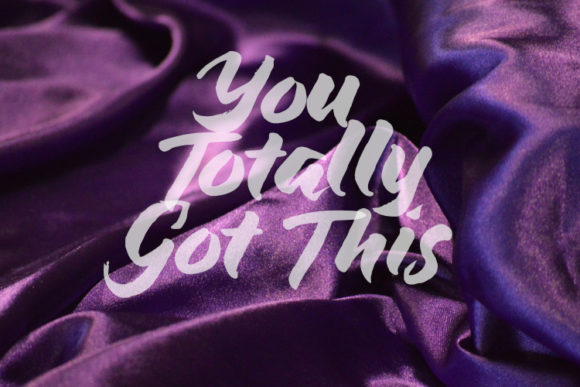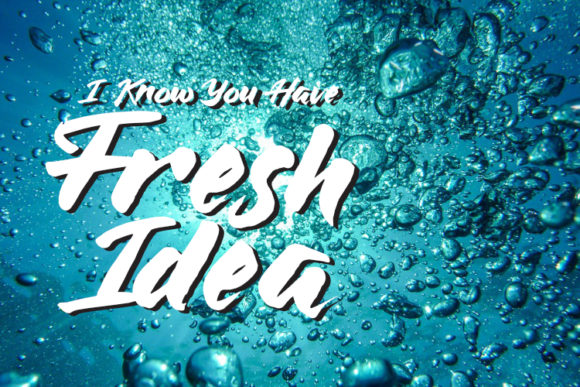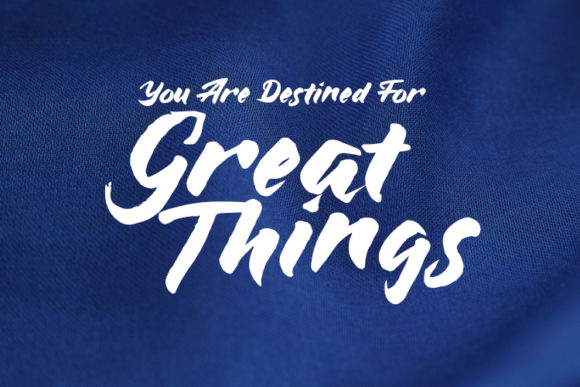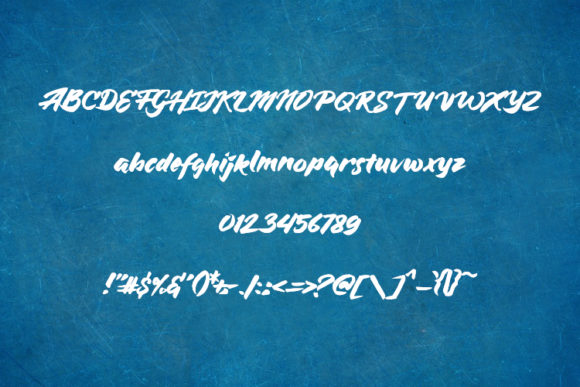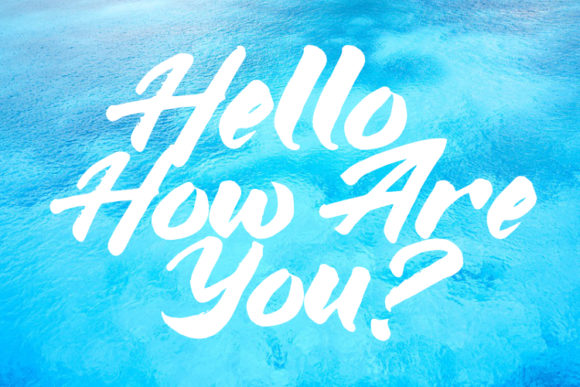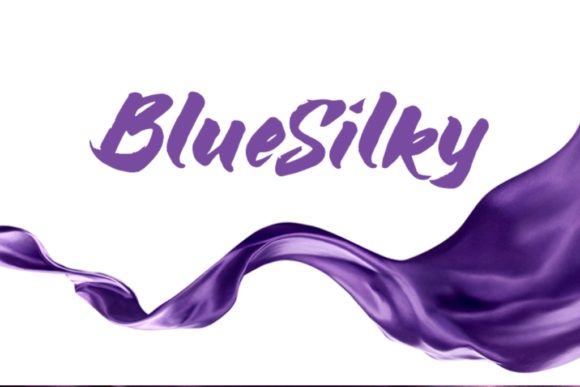
The Blue Silky Font: A Modern Brush Script for Creative Projects
Have you ever been in the middle of a design project, and suddenly, you’re stuck on finding the perfect font? I recall a recent experience where I was working on a wedding invitation design, and my client requested a font that was both elegant and playful. After hours of searching, I stumbled upon the Blue Silky font, and it instantly became the perfect fit. In this article, we’ll dive into the world of Blue Silky, a modern and fresh brush font that’s perfect for various creative projects.
What Makes Blue Silky Special?
The Blue Silky font is a stylish hand-lettering script with a natural and classy look. Its modern and fresh feel makes it an excellent choice for a wide range of projects, including logos and branding, invitations, stationery, wedding designs, social media designs, and more!
An Honest Review of Blue Silky
What I Love About Blue Silky ✨
- 💫 Unique and eye-catching design: The Blue Silky font has a distinct, hand-crafted feel that sets it apart from other fonts.
- ✅ Highly versatile: This font can be used for various projects, from formal to informal designs.
- 💬 Excellent for branding and advertising: The font’s natural and classy look makes it perfect for creating a strong brand identity.
- ⚠️ Limited use in very formal projects: While Blue Silky is a beautiful font, it may not be the best choice for very formal projects, such as government or corporate documents.
- 🤔 Requires careful kerning: As with any script font, kerning can be a bit tricky, especially when using it for large blocks of text.
- Experiment with OpenType features, such as stylistic alternates and glyphs, to add more personality to your design.
- Take advantage of OpenType features, such as ligatures and stylistic sets, to add more flair to your design.
The Story Behind Blue Silky
The Blue Silky font was created by a talented designer who wanted to craft a unique and versatile script font. Inspired by the beauty of hand-lettering, the designer spent countless hours perfecting the font’s curves and strokes. The result is a stunning font that’s both elegant and playful.
Q: What type of projects is Blue Silky suitable for?
A: Blue Silky is perfect for a wide range of projects, including logos and branding, invitations, stationery, wedding designs, social media designs, and more!
Q: Is Blue Silky a difficult font to use?
A: No, Blue Silky is a relatively easy font to use, especially if you’re familiar with script fonts. Just be sure to experiment with OpenType features and glyphs to get the most out of the font.